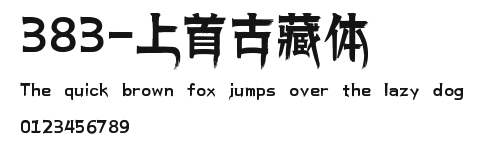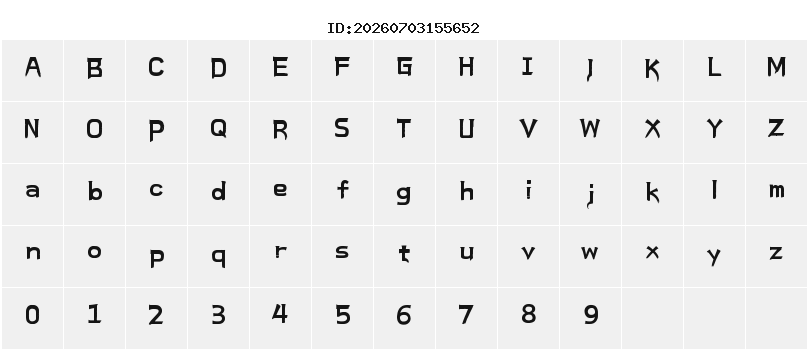
383-上首古藏体 Preview
• Font Name: 383-上首古藏体
• Font ID: 383-SSGuZang Ti:Version 4.00
• Full Font Name: 383-上首古藏体
• Version: Version 4.00 December 23, 2024
• PostScript Name: 383-SSGuZangTi
• Character Count: 7567
• Manufacturer: 上首造字
About 383-上首古藏体.ttf
383-上首古藏体.ttf is a modern, elegant sans-serif font designed for ultimate readability and visual harmony. Perfect for branding, headlines, web design, and print materials.